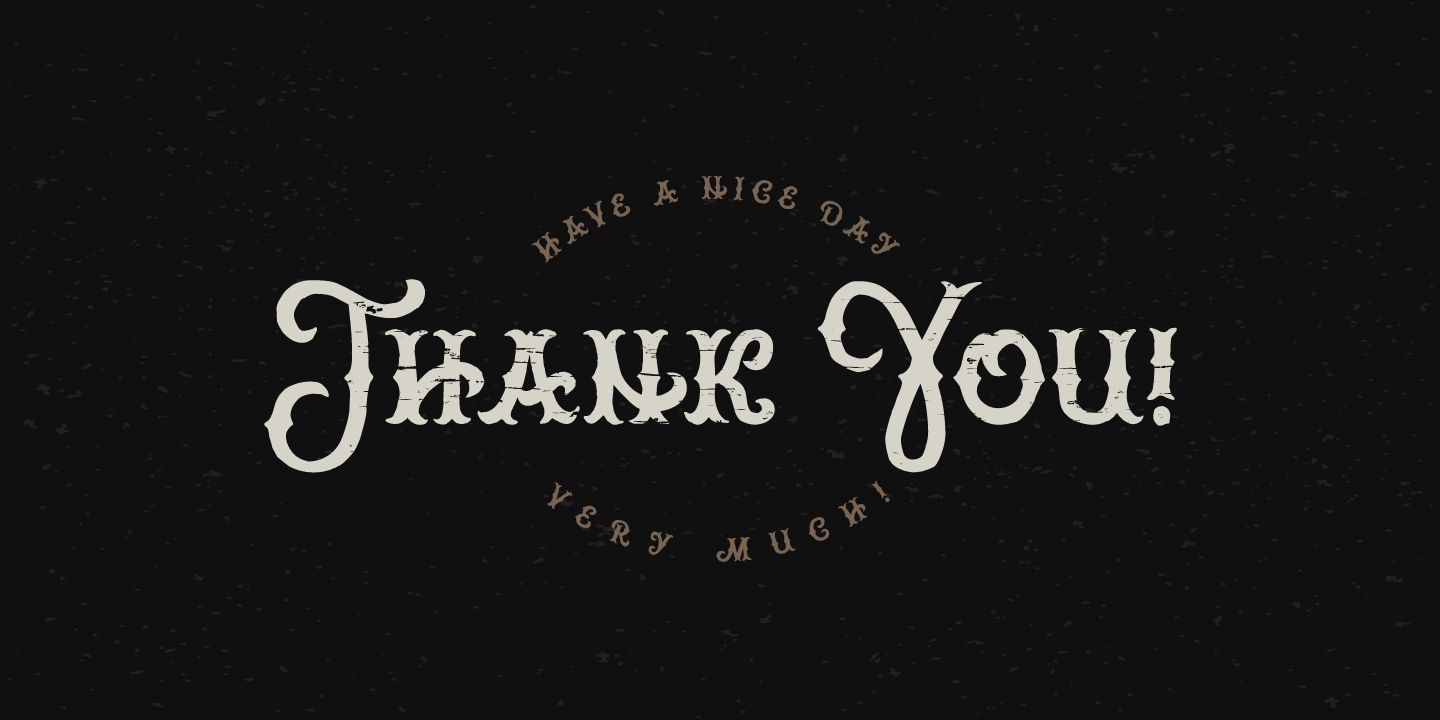
Brass Heart Font is perfect for antique brass jewelry branding, vintage steampunk designs, romantic brass instrument advertisements, artisanal metalwork marketing, heritage brass foundries, and nostalgic love-themed projects. Its warm character makes it ideal for brass manufacturers, vintage music stores, antique collectors, steampunk fashion brands, and any application requiring heartfelt typography that conveys brass warmth, romantic nostalgia, and the enduring beauty of handcrafted metallic artistry.
Brass Heart Font is exciting because it captures the warm romance and golden nostalgia of vintage brass craftsmanship through richly crafted letterforms that glow with metallic warmth and heartfelt emotion. Its brass-like proportions and romantic details evoke the tender moments of brass band serenades and the timeless appeal of antique brass heirlooms, making it perfect for brands seeking to convey authentic craftsmanship and emotional connection. The font's brass heart character transforms text into golden expressions of love and nostalgia.
Brass Heart Font family includes warmly-crafted weight variations typically featuring Light, Regular, Medium, and Bold options with flowing styles that mirror brass instrument curves. The family often incorporates musical symbols, heart ornaments, and vintage brass elements designed for romantic metalwork applications, providing designers with comprehensive tools for creating authentic, brass-inspired typographic compositions.
When selecting romantic brass typography solutions, Brass Heart Font Free Download represents an exceptional choice for vintage craftsmanship projects. This warm typeface brings instant brass authenticity to any design, making it invaluable for antique dealers, musical instrument makers, and artisanal craft businesses celebrating metallic heritage. Whether you're developing vintage brass jewelry campaigns, creating steampunk fashion materials, or designing romantic musical event promotions, Brass Heart Font provides the golden warmth and romantic craftsmanship essential for capturing brass heart elegance in today's vintage-loving artisanal marketplace.